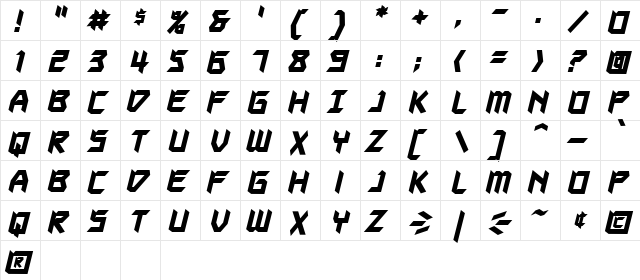
Autodestruct BB Bold
| Foundry | Nate Piekos. Blambot.com |
| Designer | Nate Piekos |
Design Context for Autodestruct BB Typeface
Autodestruct BB is a composed and adaptable typeface that performs quietly and consistently across a wide range of design contexts. Its bold stroke weight gives it real presence on the page.